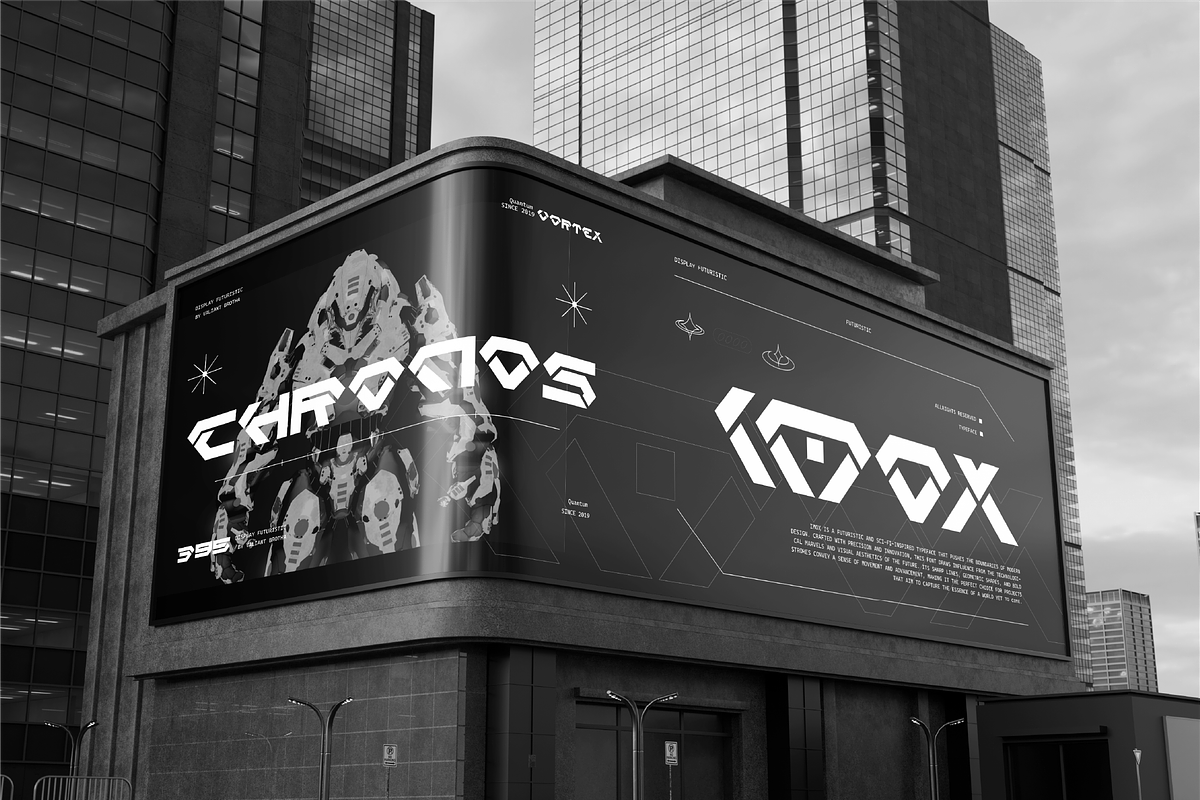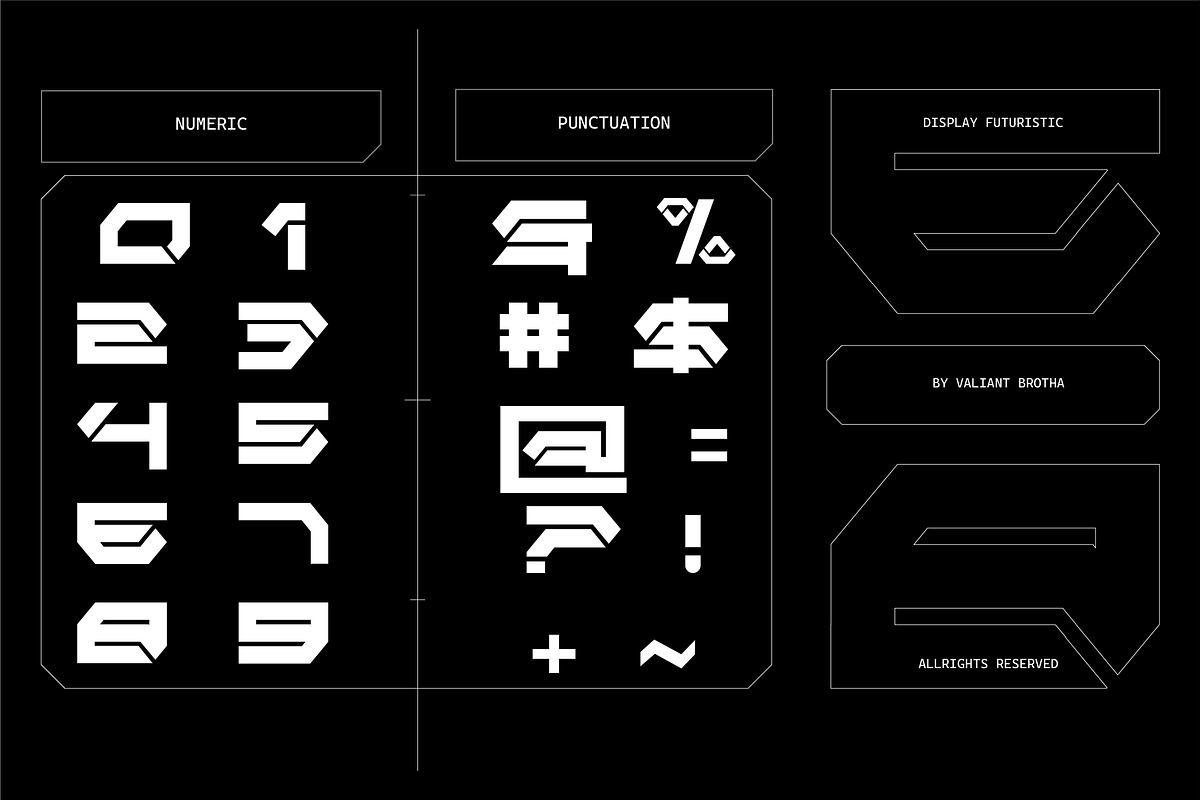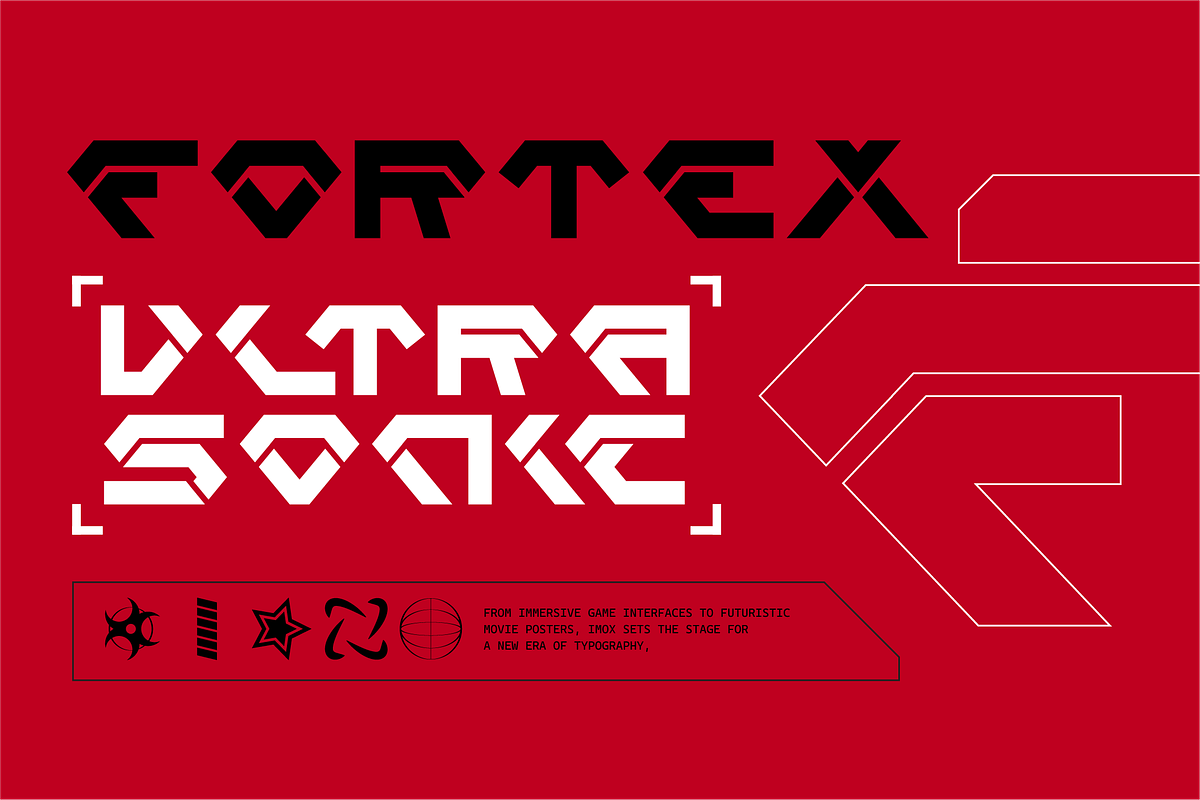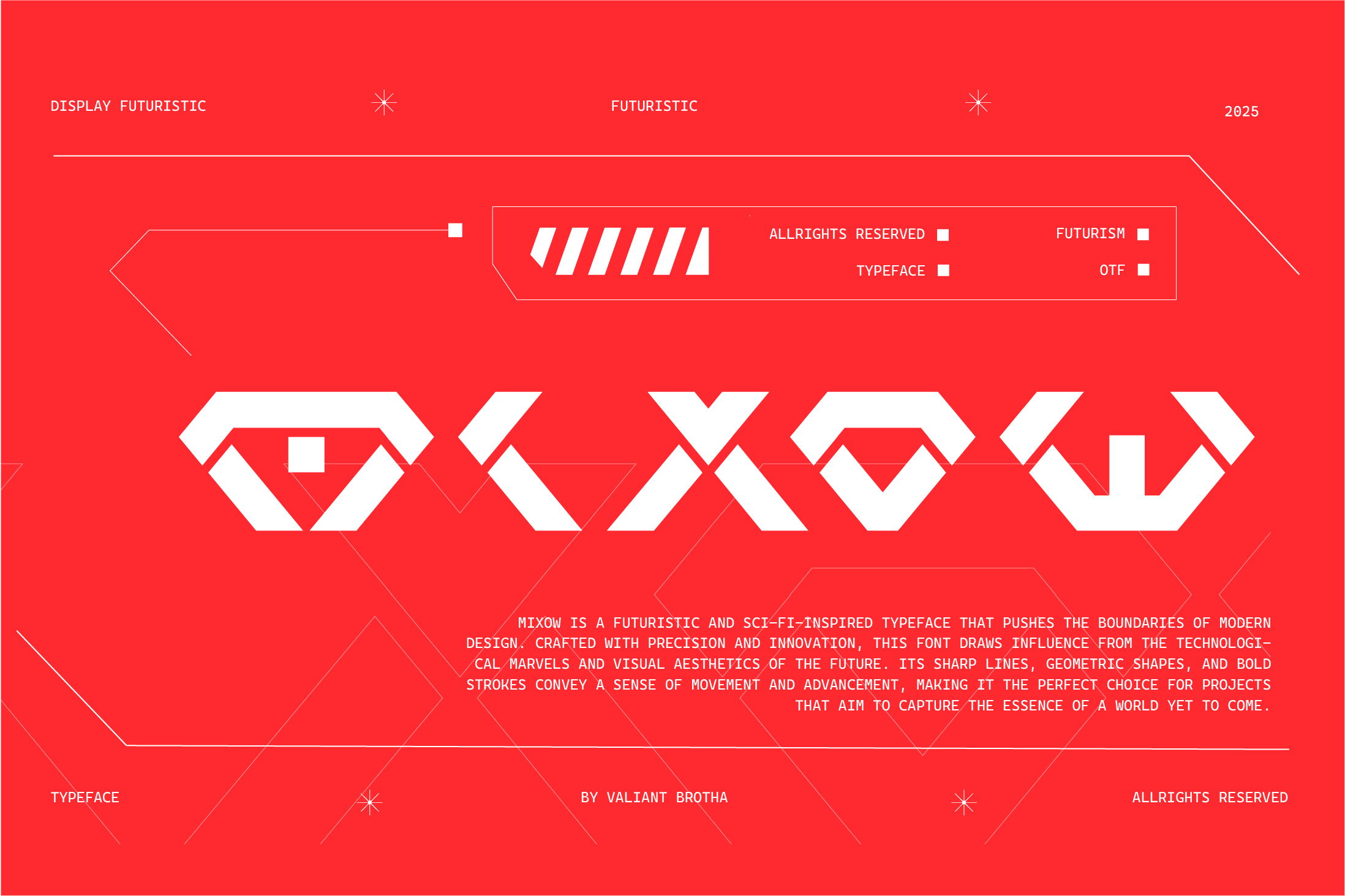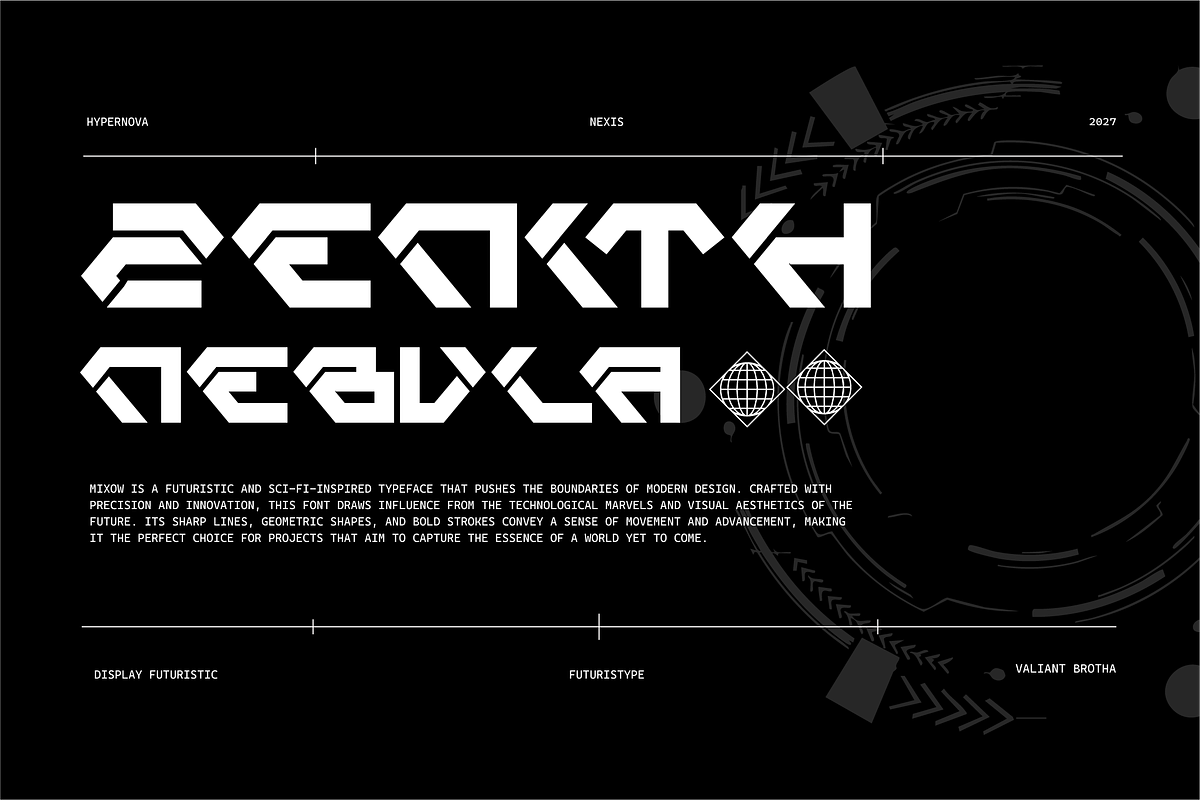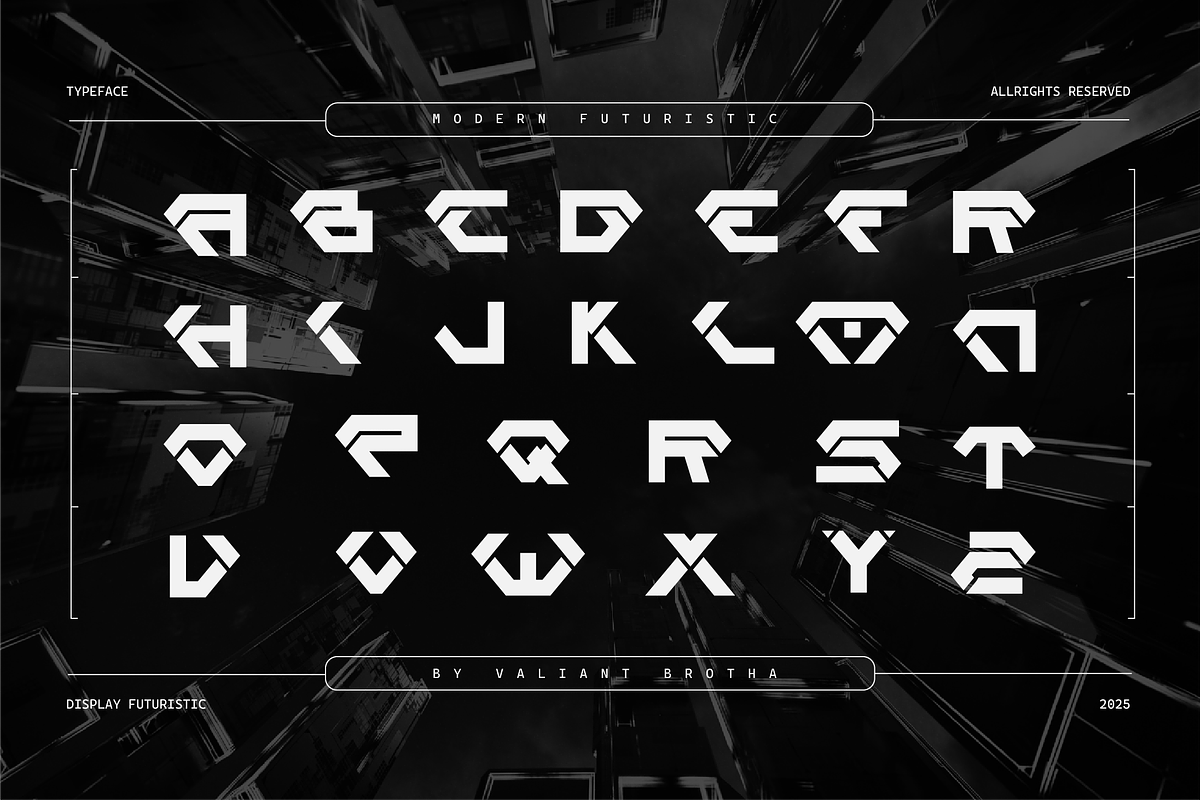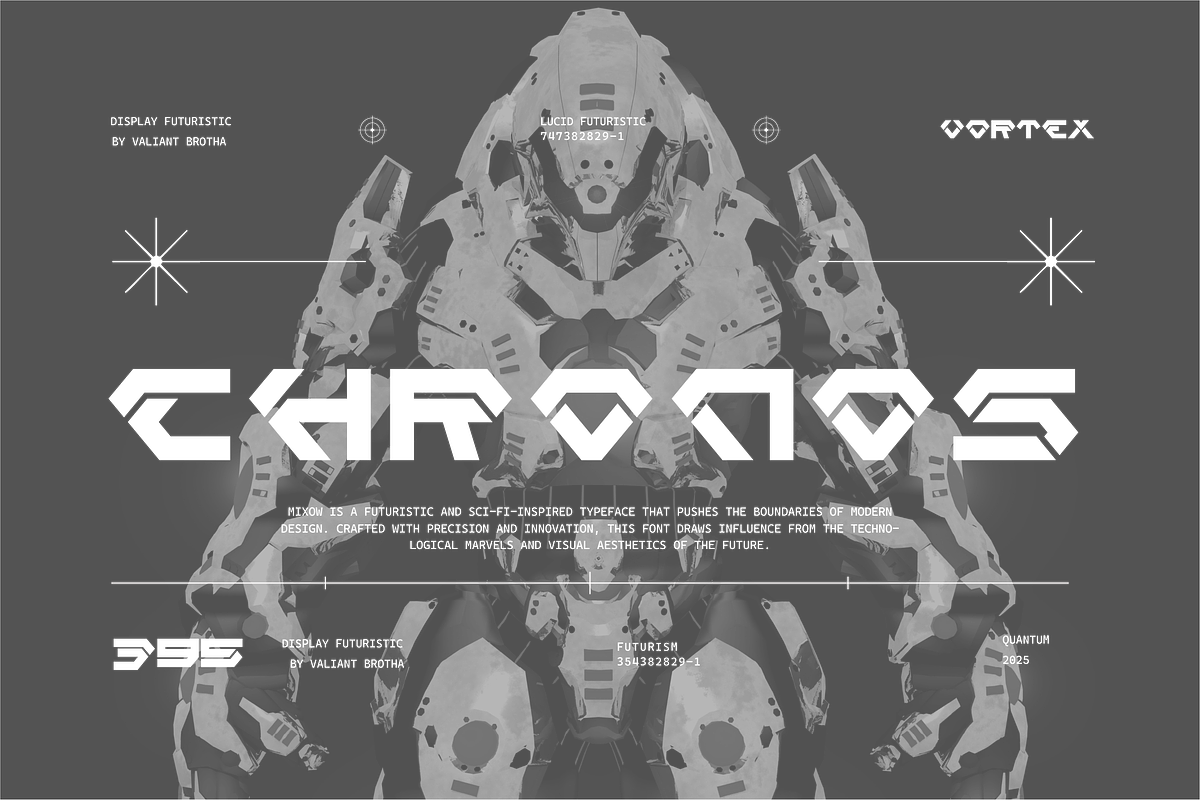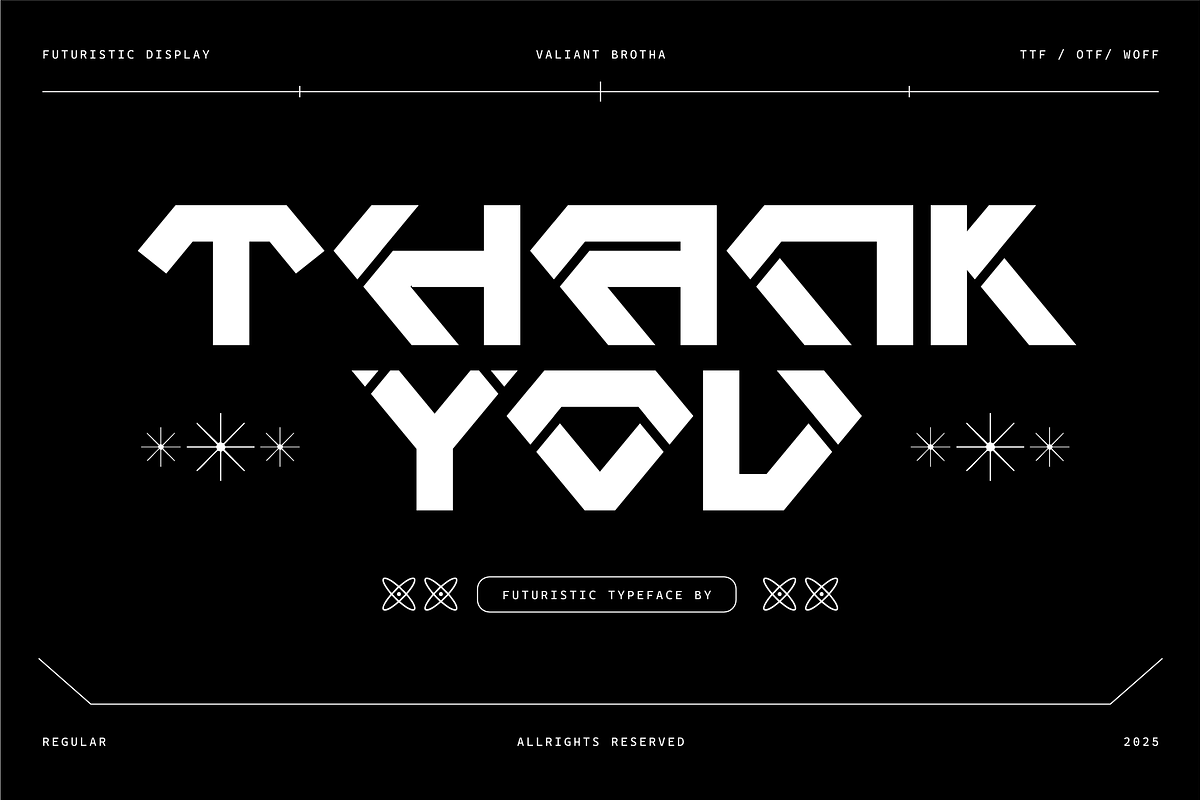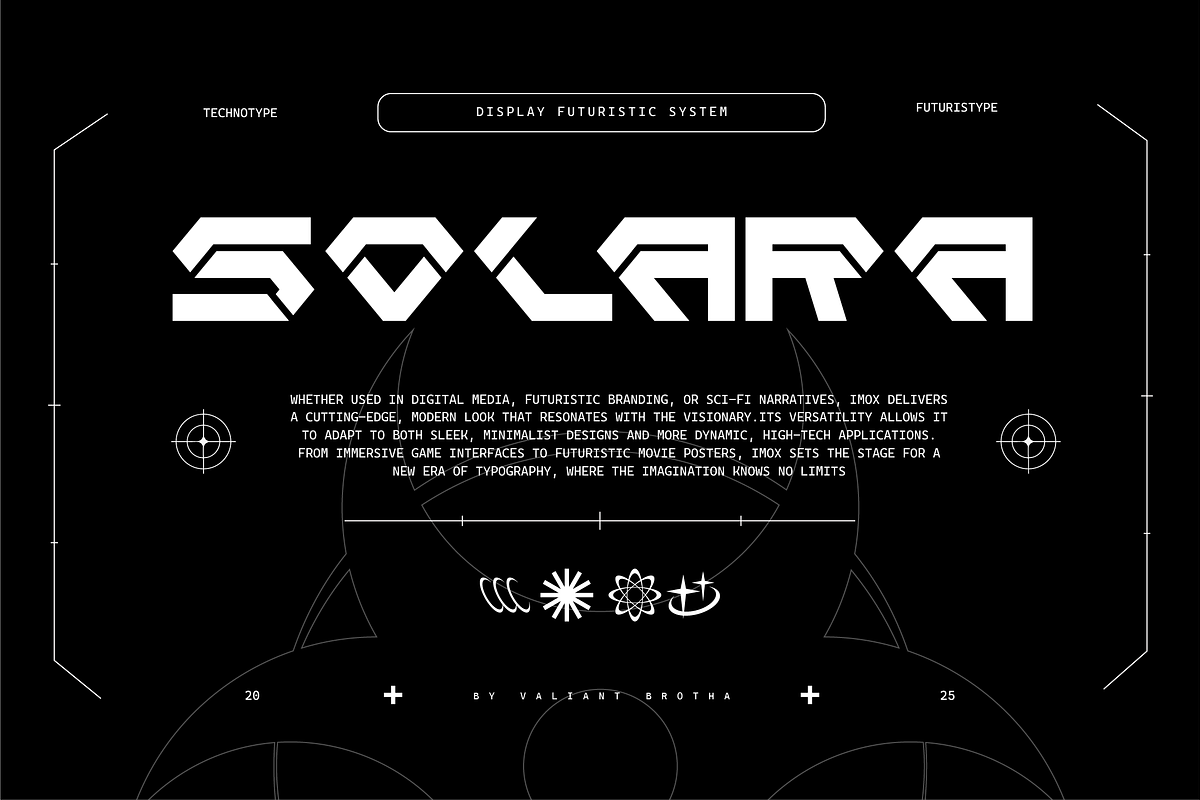
VB Mixow - Futuristic Display Font
Mixow Font is a versatile and contemporary typeface that blends sleek modernity with artistic flair. With its unique balance of sharp angles and smooth curves, this font offers a distinct yet harmonious look.